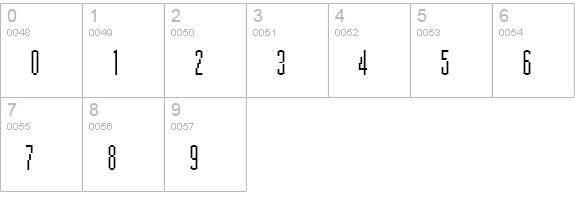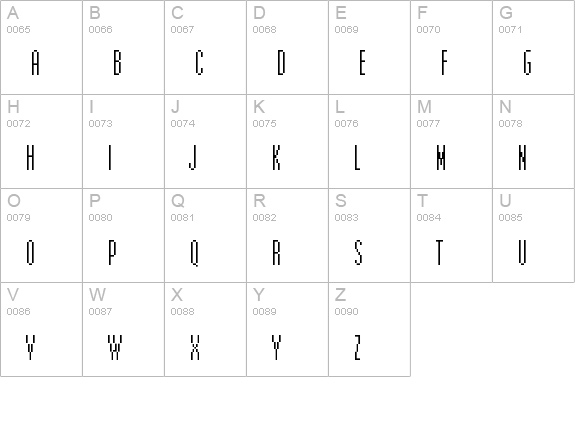
EmperorFifteen Regular Font Details
EmperorFifteen Regular is the standard, neutral variant in the EmperorFifteen typeface family \xE2\x80\x94 well suited to general body text, paragraphs, and standard typographic work.
EmperorFifteen Regular font is a stylish and versatile typeface perfect for a wide range of design projects. Its clean lines and classic design make it a great choice for both headings and body text. With a touch of elegance and sophistication, this font is sure to elevate any project it is used in. The best part? EmperorFifteen Regular font is available for free download at FontsMarket.com. Don't miss out on adding this beautiful font to your collection today!